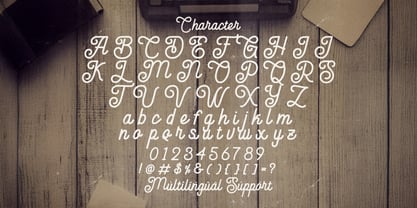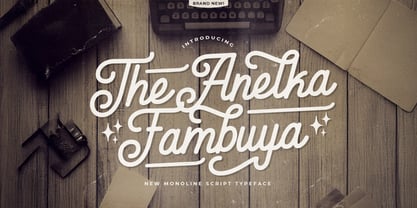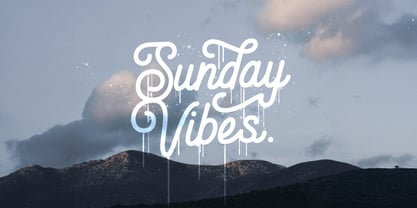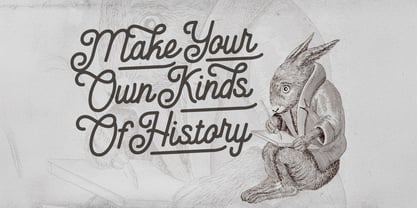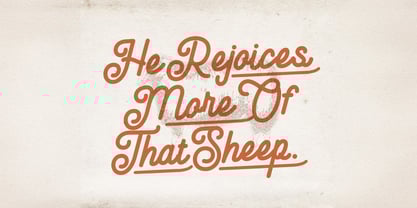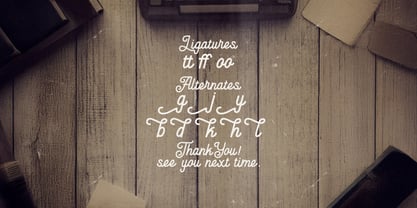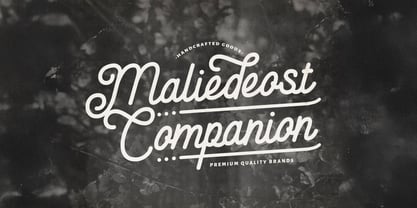
Anelka Fambuya
by Stringlabs Creative Studio
The Anelka Fambuya Font Family was designed by Virgiawan Listanto and published by Stringlabs Creative Studio. Anelka Fambuya contains 1 styles.
Anelka Fambuya is a smooth monoline retro font bursting with vintage charm and modern flair. Inspired by classic signage and mid-century aesthetics, this font blends clean curves with a playful personality perfect for giving your designs a nostalgic yet fresh feel. From logos and headlines to packaging and social media graphics, Anelka Fambuya brings that timeless retro vibe with a sleek, handwritten twist.